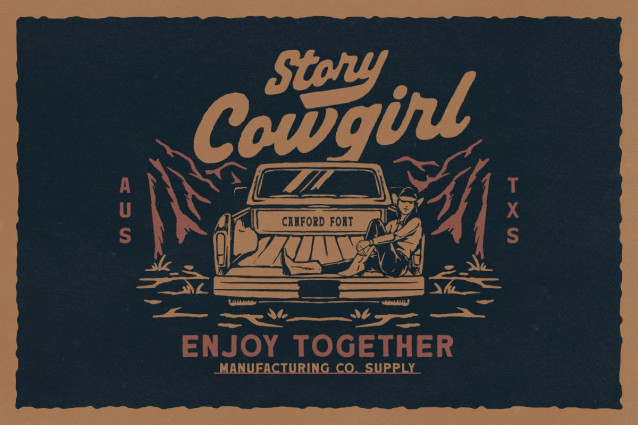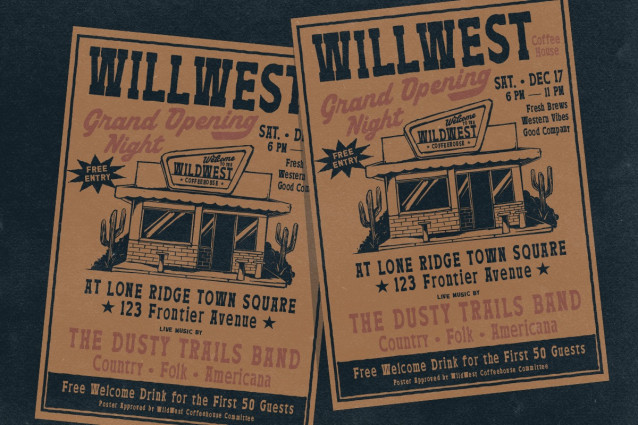
Canford Sans Font
Canford Sans Font a bold, rustic energy with its sturdy letterforms, weathered texture, and hand-hewn character that echoes classic outdoor badges and heritage craftsmanship. Its mix of strong block type and smooth script adds both grit and warmth, creating a timeless frontier vibes.